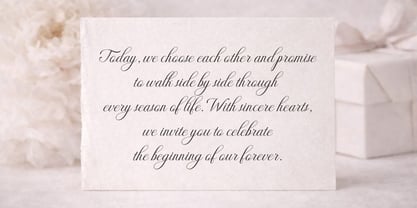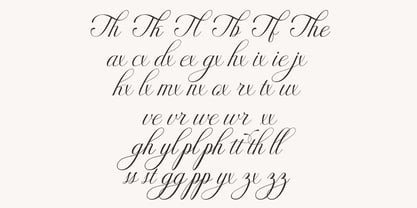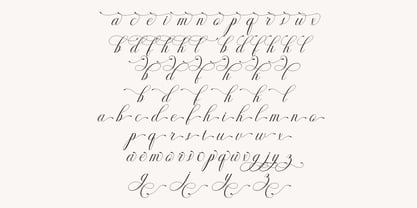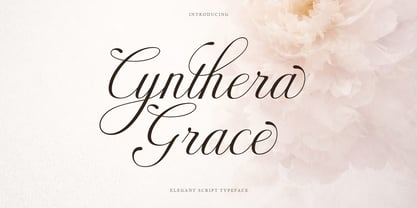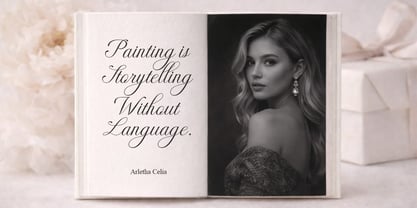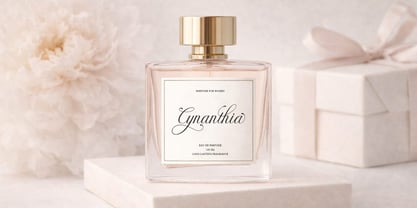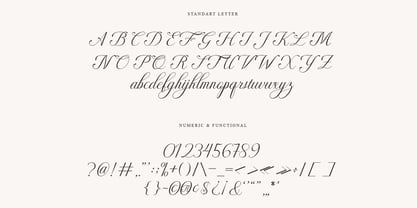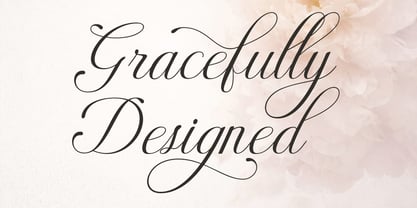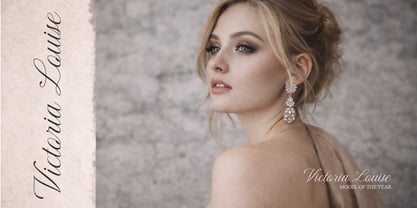
Cynthera Grace
La famille de polices Cynthera Grace a été conçue par Michael Everson et publiée par Qiubare Studio. Cynthera Grace contient 1 styles. En savoir plus sur cette famille
Cynthera Grace is an elegant and timeless script font designed to infuse softness, romance, and luxury into every design. With its smooth flowing strokes, refined curves, and graceful swashes, this font is ideal for projects that demand a feminine and sophisticated touch. It features beautiful alternates and stylish ligatures, supporting multiple European languages with full extended Latin characters. Cynthera Grace allows you to create natural, handwritten typography that feels both personal and polished. Whether used for wedding invitations, perfume branding, editorial layouts, or luxury packaging, this font delivers a graceful visual harmony that elevates your designs. Perfect for: Wedding stationery & invitations, Luxury branding & perfume labels, Editorial designs & magazines, Quotes, cards, and feminine branding, Fashion, beauty, and lifestyle projects. Cynthera Grace combines classic calligraphy aesthetics with modern usability, making it a versatile script font suitable for both digital and print applications.